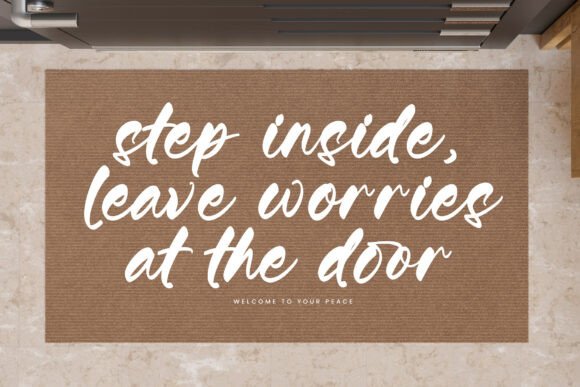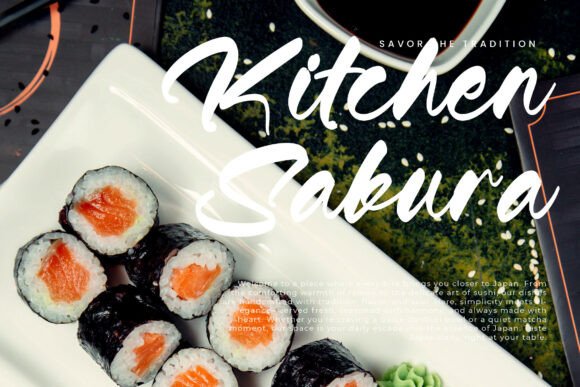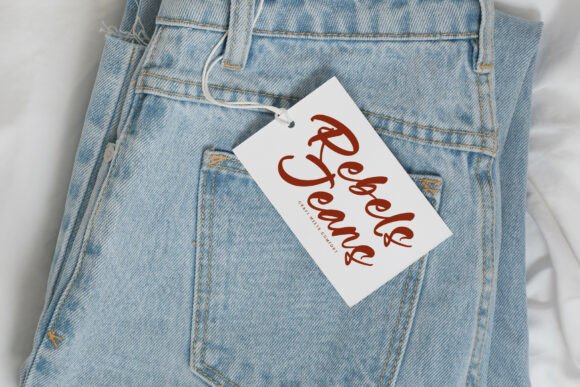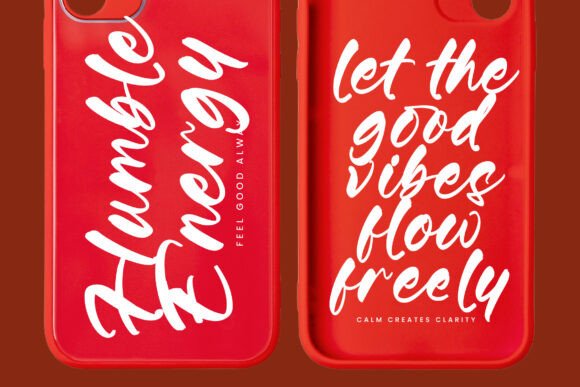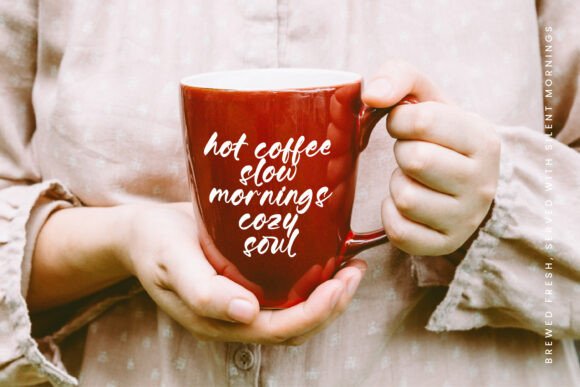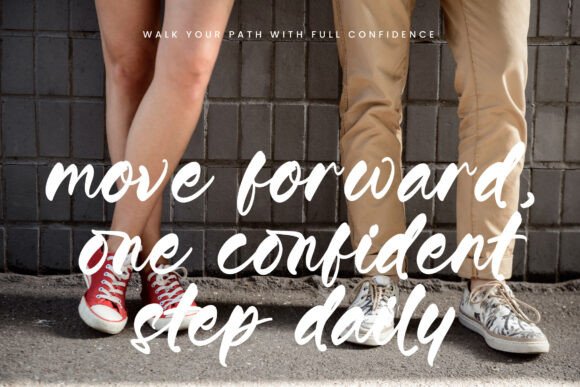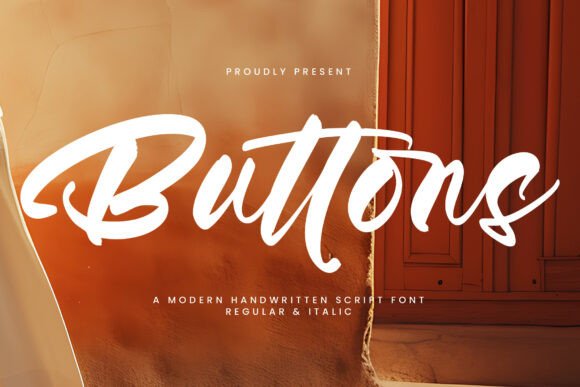
Introducing Buttons Font: Elevate Your Designs with Artistic Flair and Contemporary Elegance
In the world of typography, few fonts manage to strike a balance between artistic expression and modern sophistication. Buttons Font is one such exceptional typeface that brings a fresh perspective to the table. This stylish script font is designed to infuse your designs with a creative and sophisticated touch, making it perfect for a wide range of applications, from logos and invitations to packaging and social media graphics.
The Artistry of Buttons Font
Buttons Font is characterized by its fluid brush strokes, dynamic curves, and expressive letterforms. These features come together to create a font that captures the essence of hand-painted calligraphy with a modern twist. The fluidity of the brush strokes gives the font a natural, organic feel, while the dynamic curves and expressive letterforms add a level of sophistication and elegance.
One of the standout features of Buttons Font is its ability to convey a sense of movement and energy. The fluid brush strokes seem to dance across the page, imbuing the font with a vibrant character that is impossible to ignore. This makes it an excellent choice for designers looking to add a touch of personality to their work.
Versatility and Visual Impact
Buttons Font is incredibly versatile, making it suitable for a wide range of design applications. Whether you’re creating a logo, invitation, packaging, or social media graphic, this font is sure to deliver both visual impact and versatility. Its natural flow and vibrant character make it an excellent choice for designers looking to create eye-catching and engaging designs.
One of the key benefits of Buttons Font is its ability to elevate even the simplest designs. Whether you’re working on a complex branding project or a simple social media graphic, this font is sure to add a touch of sophistication and elegance. Its creative and artistic flair makes it an excellent choice for designers looking to push the boundaries of their work.
Buttons Font is a must-have for designers and crafters looking to add a touch of artistic flair to their work. Its unique blend of hand-painted calligraphy and modern sophistication makes it an excellent choice for a wide range of design applications.
For designers, Buttons Font offers a level of creativity and flexibility that is hard to find in other fonts. Its fluid brush strokes and dynamic curves make it an excellent choice for creating eye-catching and engaging designs. Whether you’re working on a branding project, creating social media graphics, or designing packaging, this font is sure to deliver.
For crafters, Buttons Font offers a level of sophistication and elegance that is perfect for a wide range of projects. Whether you’re creating handmade cards, scrapbooking, or working on a craft project, this font is sure to add a touch of personality and flair.
Key Features of Buttons Font
- Stylish script font with fluid brush strokes and dynamic curves
- Expressive letterforms that capture the essence of hand-painted calligraphy
- Modern twist on traditional calligraphy
- Ideal for logos, invitations, packaging, and social media graphics
- Versatile and suitable for a wide range of design applications
- Natural flow and vibrant character that delivers visual impact
Buttons Font is an exceptional typeface that offers a unique blend of artistic flair and contemporary elegance. Its fluid brush strokes, dynamic curves, and expressive letterforms make it an excellent choice for designers and crafters looking to add a touch of sophistication and creativity to their work. Whether you’re working on a branding project, creating social media graphics, or designing packaging, this font is sure to deliver both visual impact and versatility.